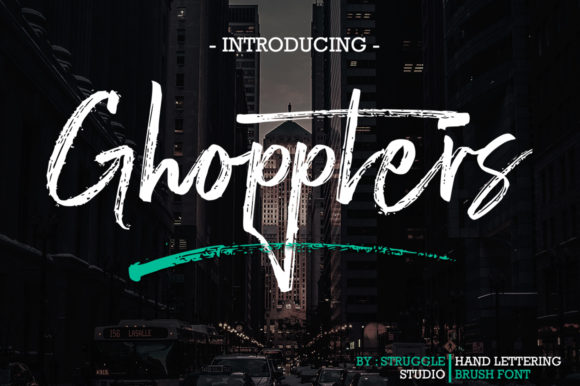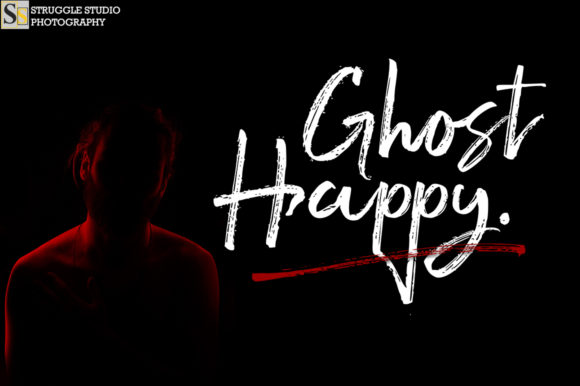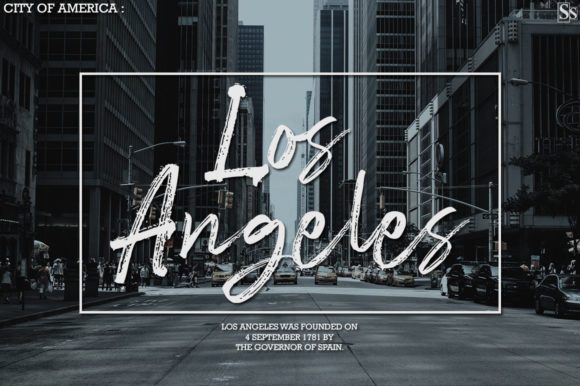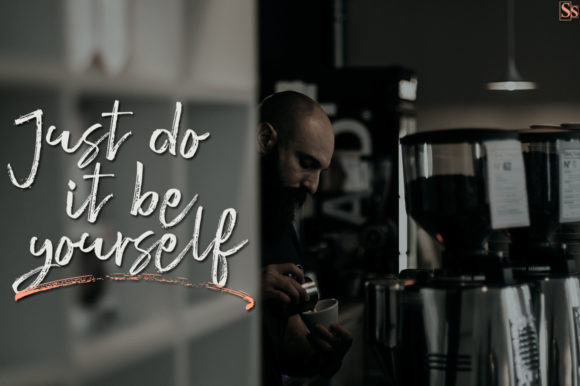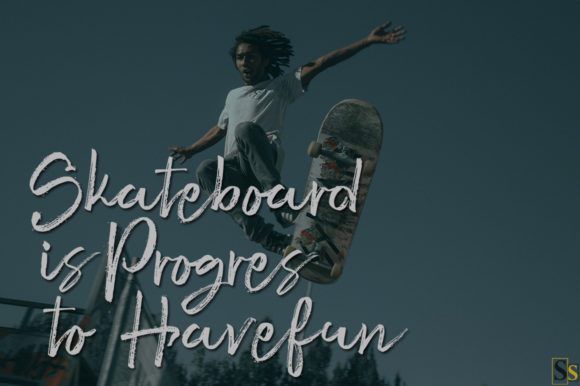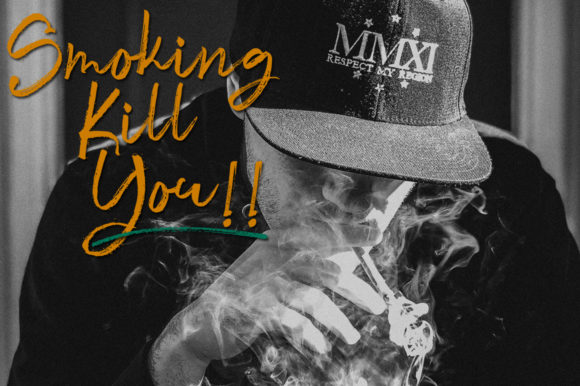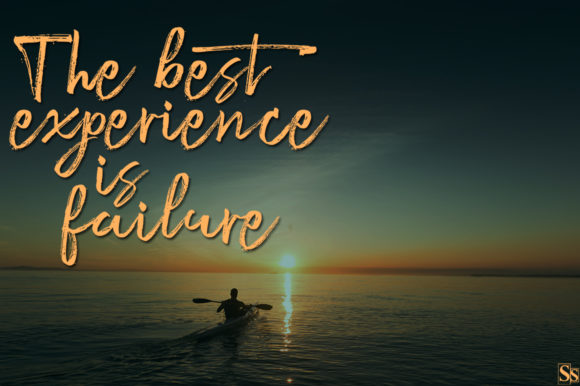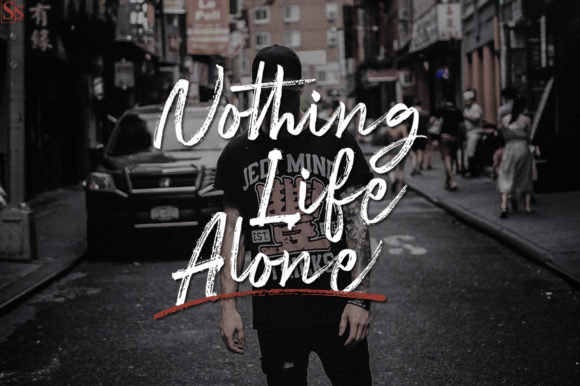
Ghoppters Font
About Ghoppters Font
Ghoppters is a great brush font. It features a unique feel that makes it perfect for clothing, invitations, book covers, stationery, quotes, branding, logos, greeting cards, packaging designs, posters, and more.